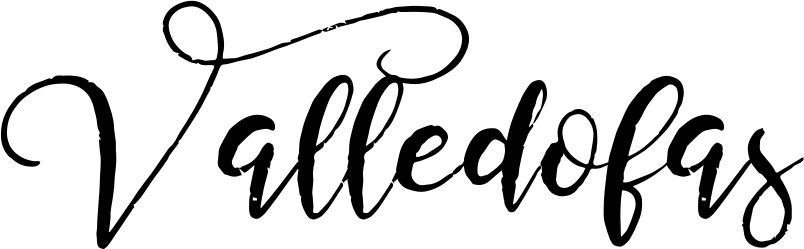
Valledofas Font
Valledofas font has a handwritten style and is the best choice for wedding cards and party invitations. This whimsical and script font is incredible for designing birthday greeting cards, for example, Women’s Day, and Valentine’s Day.
This cursive font has lines skillfully designed in lowercase and uppercase letters and numbers, which will be comparable to creating any posters, flyers, and T-shirt designs.
introducing Valledofas Typeface modern script typeface, using style hand made with brushing. Get a Valledofas Second Typeface ( bonus ) using handmade sans serif style. Valledofas Typeface a beautiful for wedding card design, logotype, website header, Valentines day design, fashion design and any more.Product Content :